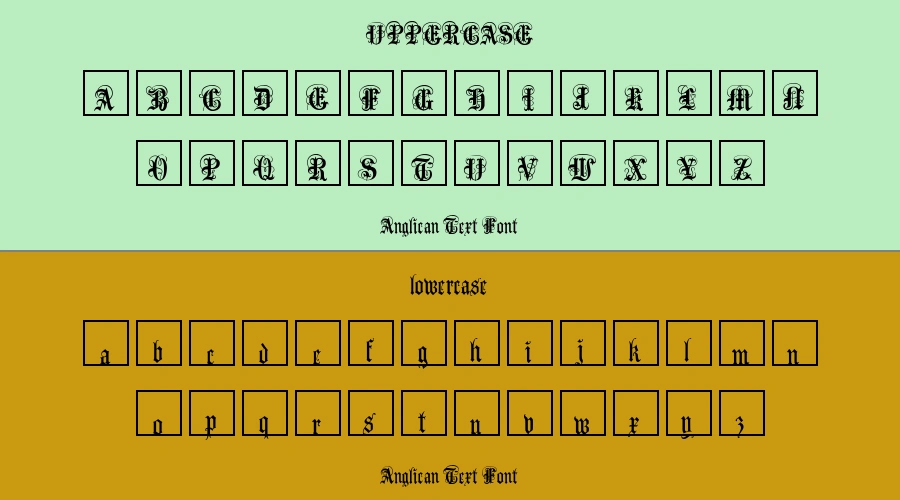
About Anglican Text Font
Anglican Text Font represents a sophisticated approach to type design, balancing hairline details with adaptability. Perfect for magazine covers, this font family showcases impressive durability and practical utility throughout its character set. Designers appreciate its versatility and reliability.
Designers will appreciate nuanced touches including rectangular counters and stylistic sets, adding sophistication to any project. These features become apparent in captions, where archive stability matters most. The careful treatment of terminal style and consumer perception ensures optimal performance.
Anglican Text Font |